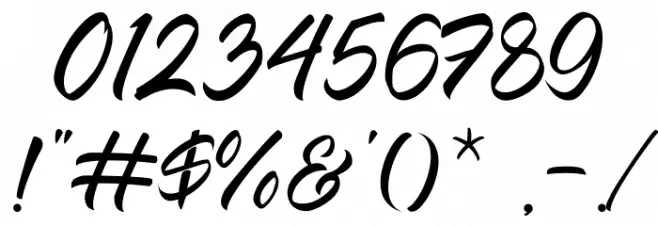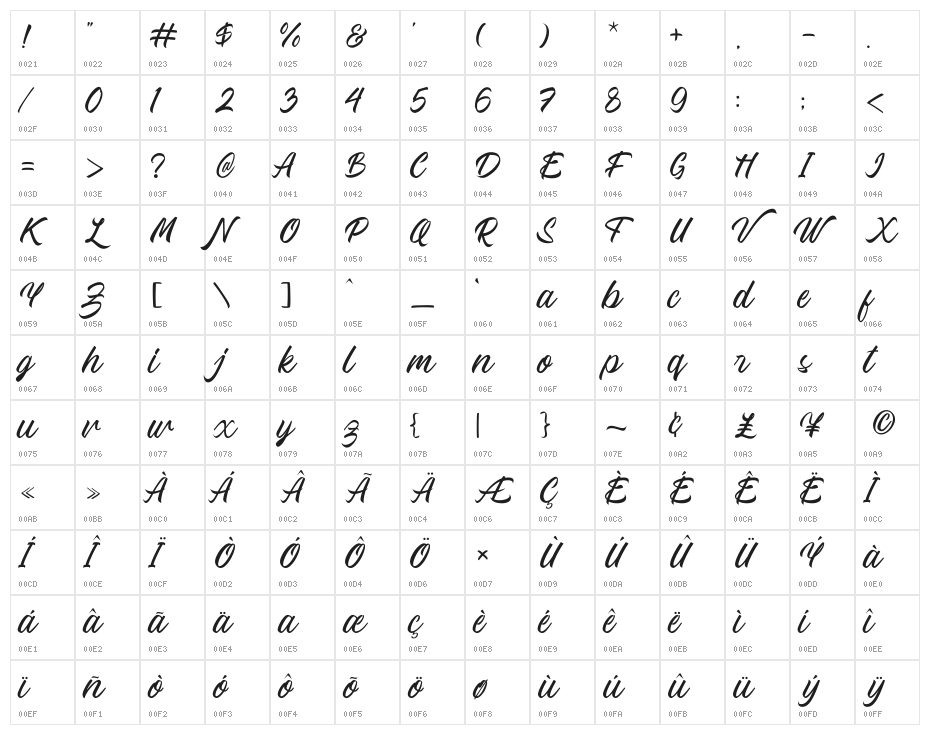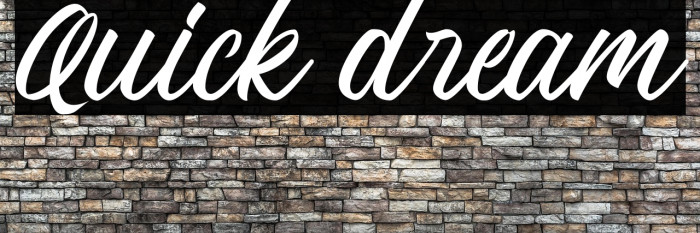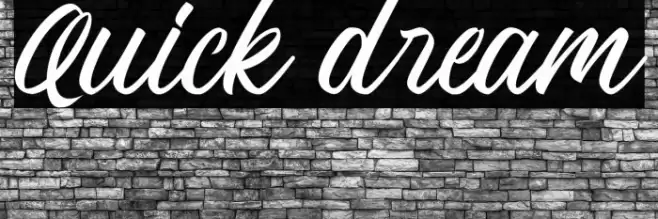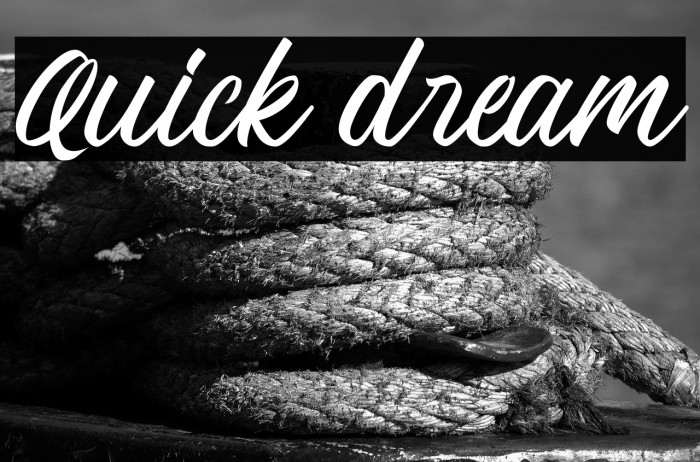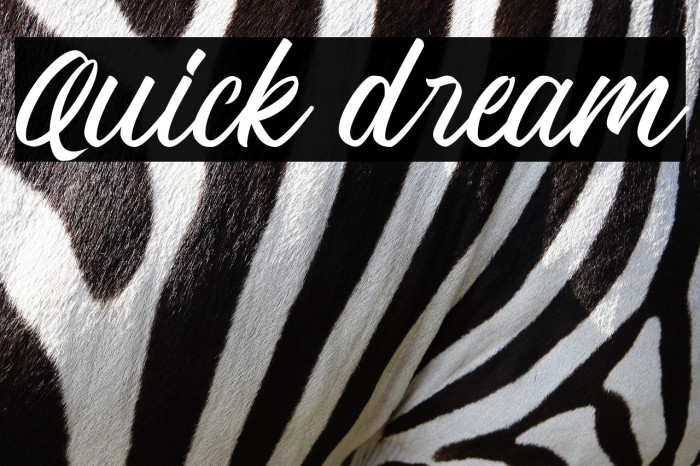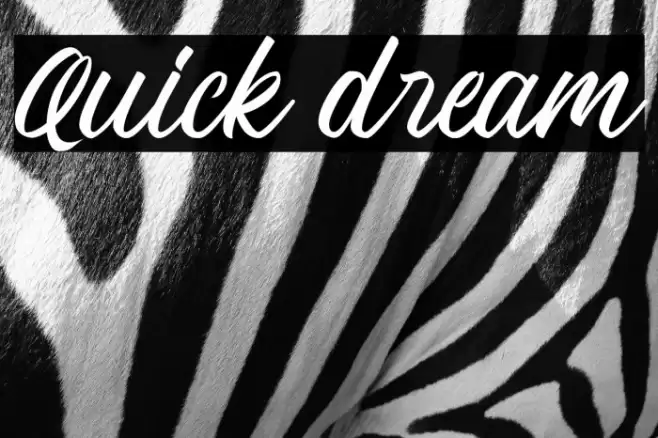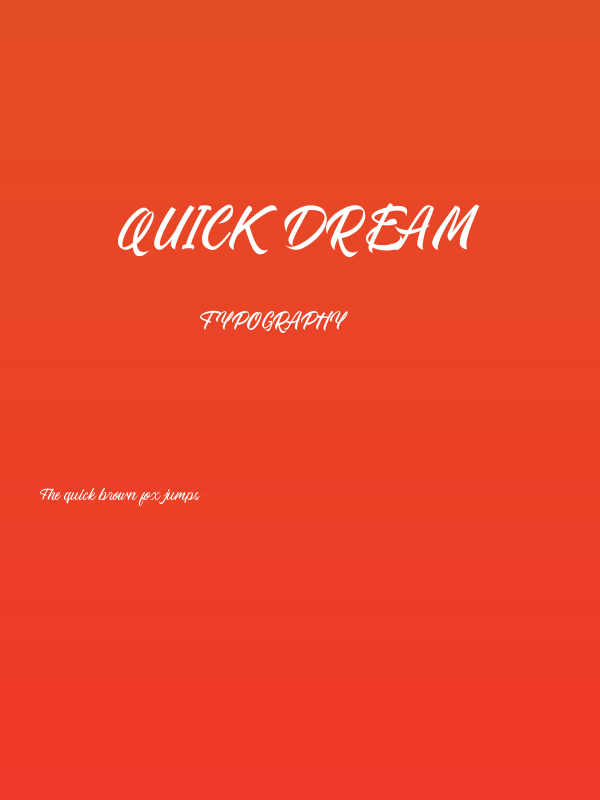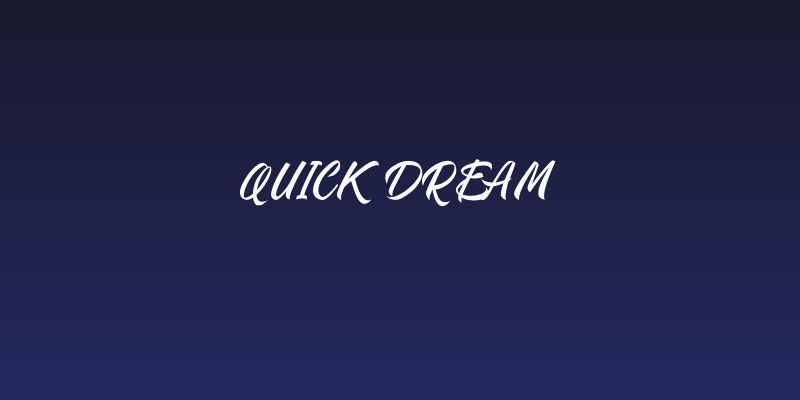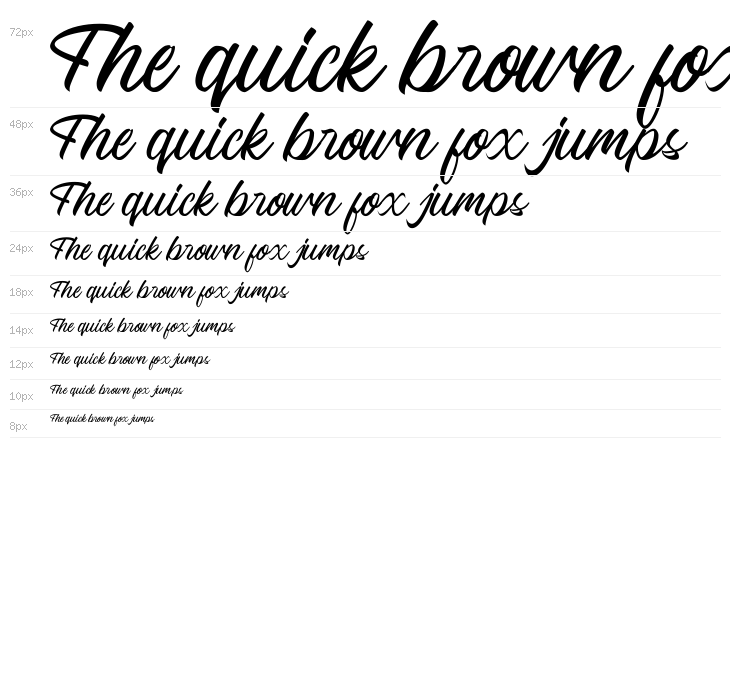
Quick dream Font
Quick dream Description
This font exudes a dynamic and fluid style, characterized by its cursive script form. The letters are interconnected, creating a seamless flow that mimics natural handwriting. The strokes are bold and confident, with a slight slant that adds to its energetic appearance. The uppercase letters maintain a consistent height, while the lowercase letters vary slightly, enhancing the handwritten feel. The numerals and special characters are crafted with the same attention to detail, ensuring uniformity across all glyphs. This font is ideal for projects that require a personal touch, such as invitations, greeting cards, or branding materials that aim to convey elegance and sophistication.